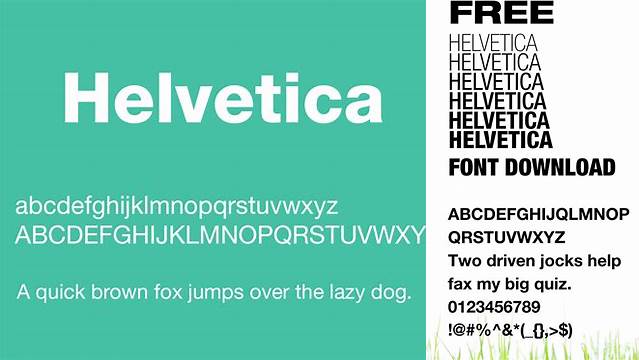
Helvetica Font: A Timeless Classic for Android
Helvetica, guys, is more than just a font; it's a design icon. Known for its clarity, neutrality, and versatility, Helvetica has been a go-to choice for designers and brands for decades. Its clean lines and excellent readability make it perfect for everything from headlines to body text. And now, with the possibility of a Helvetica font for Android free download, you can bring this classic to your mobile device. This accessibility allows you to customize the look and feel of your phone, making it more personalized and enjoyable to use. Imagine your phone's interface, your favorite apps, and even your text messages all displaying in the elegant Helvetica font. This is a simple way to give your Android device a fresh, modern aesthetic. The beauty of Helvetica lies in its simplicity. It's a font that doesn't demand attention, but rather, it enhances the content it presents. It's a font that works equally well in small sizes as it does in large ones, making it ideal for the varied screen sizes and resolutions of Android devices. The appeal of the Helvetica font for Android free download is undeniable, allowing users to tap into a legacy of design excellence with just a few steps. By having Helvetica on your Android, you're not just changing the font; you're bringing a touch of timeless design to your everyday digital life. Furthermore, using Helvetica on your Android can improve the overall user experience. Its excellent legibility can make reading on your device easier on the eyes, especially for long periods. The font's neutral design also allows the content to take center stage, reducing distractions and promoting better comprehension. Whether you are checking your email, browsing the web, or reading a book, Helvetica can enhance your reading experience. Getting the Helvetica font for Android free download is a simple way to make your phone feel more polished and refined, ensuring that the font is readily available for use in various applications and system-wide settings. It's about making your digital world a more visually pleasing and functional place.
Installing via Font Management Apps
Installing Helvetica through font management apps is one of the easiest and most convenient ways to get the Helvetica font for Android free download onto your device. As mentioned earlier, font management apps allow you to browse, download, and apply fonts directly from the Google Play Store. Once you have downloaded and installed the font management app, search for Helvetica or a similar font. These apps often have a search function to help you find the font quickly. Preview the font before you download it. This lets you see how the font looks on your device. Make sure you like the font before continuing. Download the font directly from the app. The app should handle the download and the installation process. Often, it will install the font in the correct format for your device. To apply the font system-wide, go to the settings in the font management app. The specific settings vary from app to app, but look for an option to apply the font system-wide or within specific applications. Some apps will automatically apply the font, while others may prompt you to restart your device. Restart your device, if prompted, for the changes to take effect. This ensures that the new font will be displayed consistently across your device. After the restart, check your system settings, such as the display settings. Make sure that Helvetica is selected as your default font. Test your applications to ensure that the font is correctly applied to the system and other applications. Using font management apps makes it simple to install and activate the Helvetica font for Android free download. It is a convenient way to customize your Android device quickly and efficiently.
Manual Installation: Step-by-Step Guide
Manual installation of the Helvetica font for Android free download may be needed if you are unable to use font management apps or if you prefer a more hands-on approach. This method involves downloading the font file and placing it in the appropriate directory on your device. First, download the Helvetica font file. Ensure you download the font file in a compatible format, such as .ttf or .otf. These are the standard font file formats that Android supports. You'll need to connect your Android device to your computer. Use a USB cable to connect your Android device to your computer. When connected, your device may prompt you to allow file transfer. Allow the file transfer option on your device. Access your Android device's storage. Navigate your computer's file explorer to access your Android device's storage. Create a 'fonts' folder. If it does not already exist, create a folder named